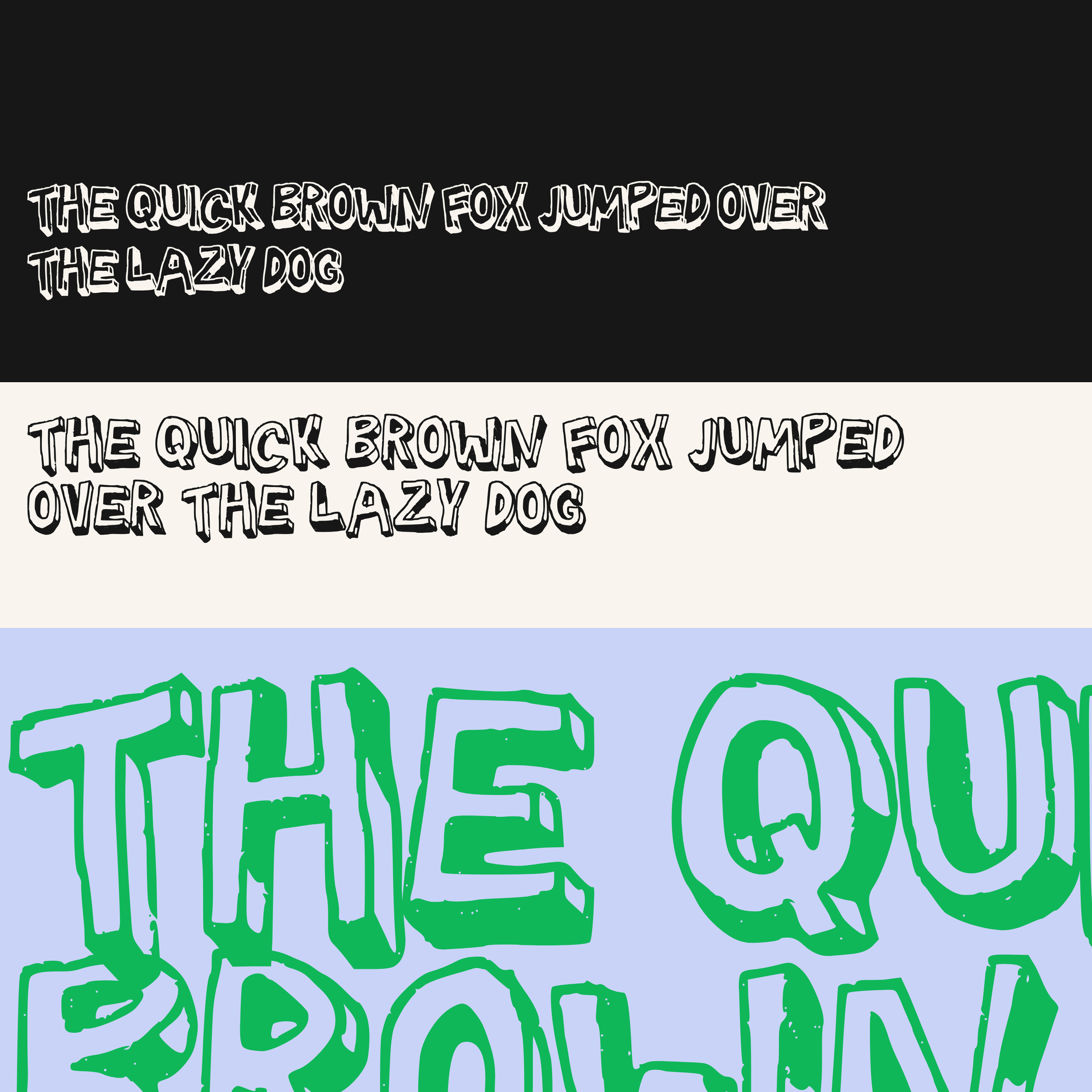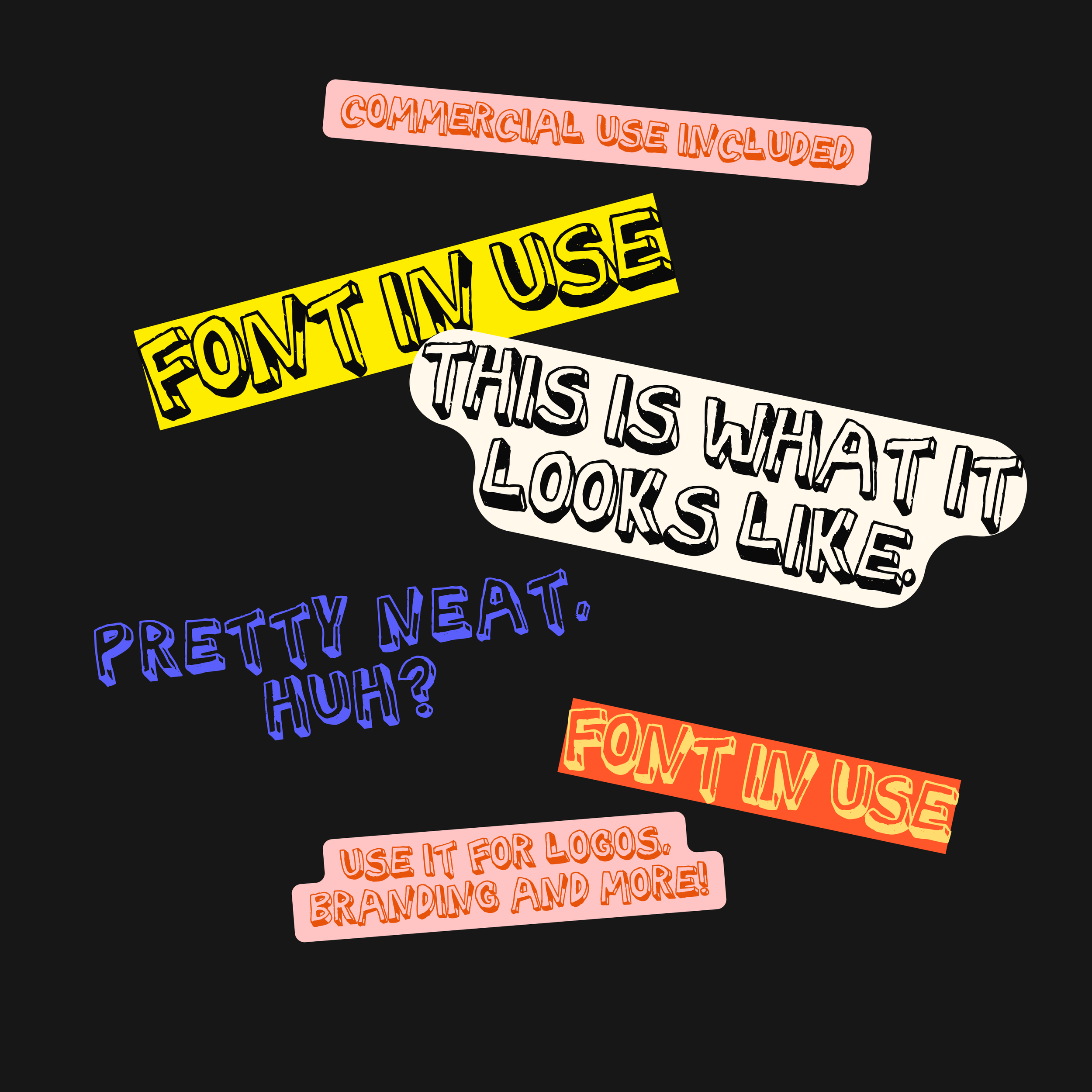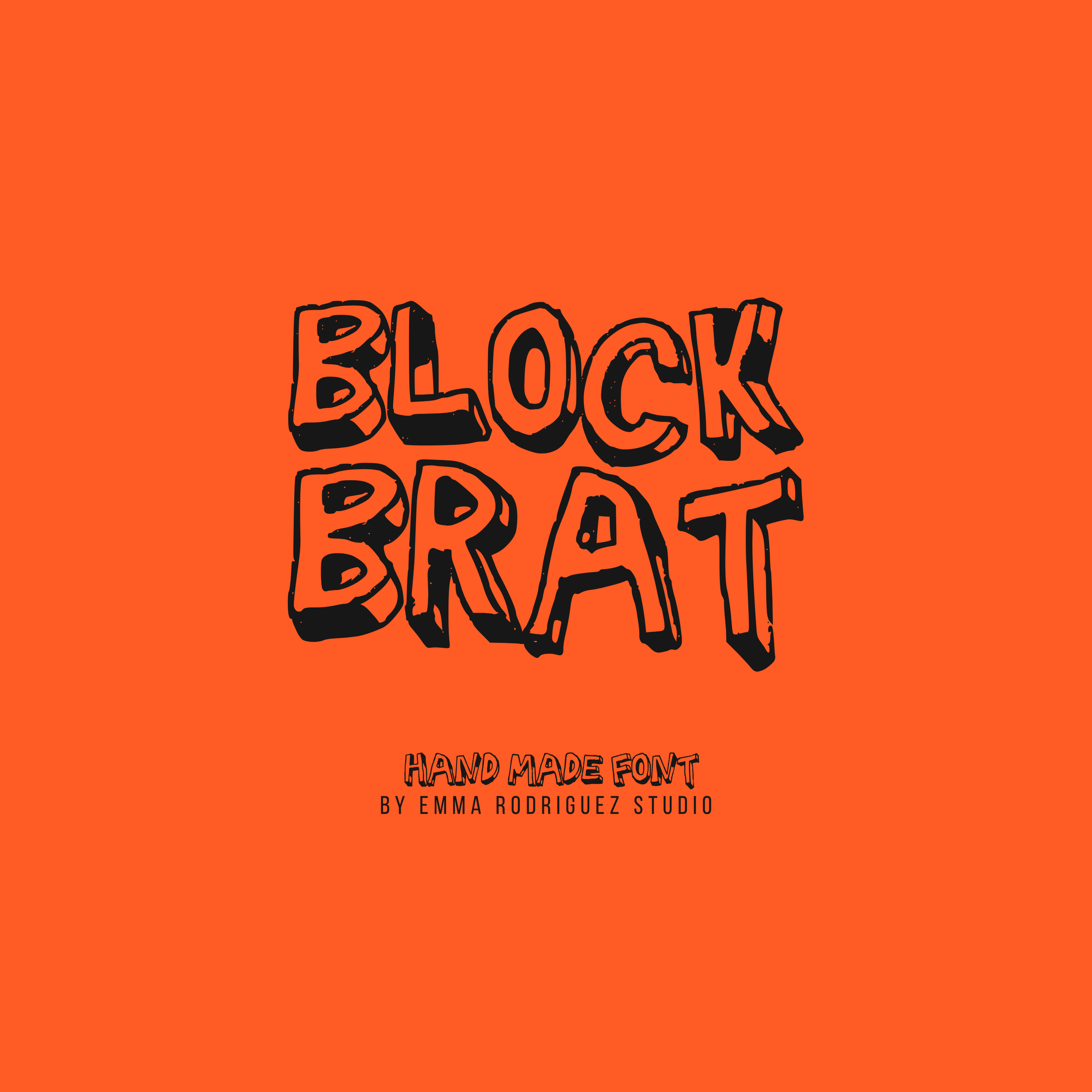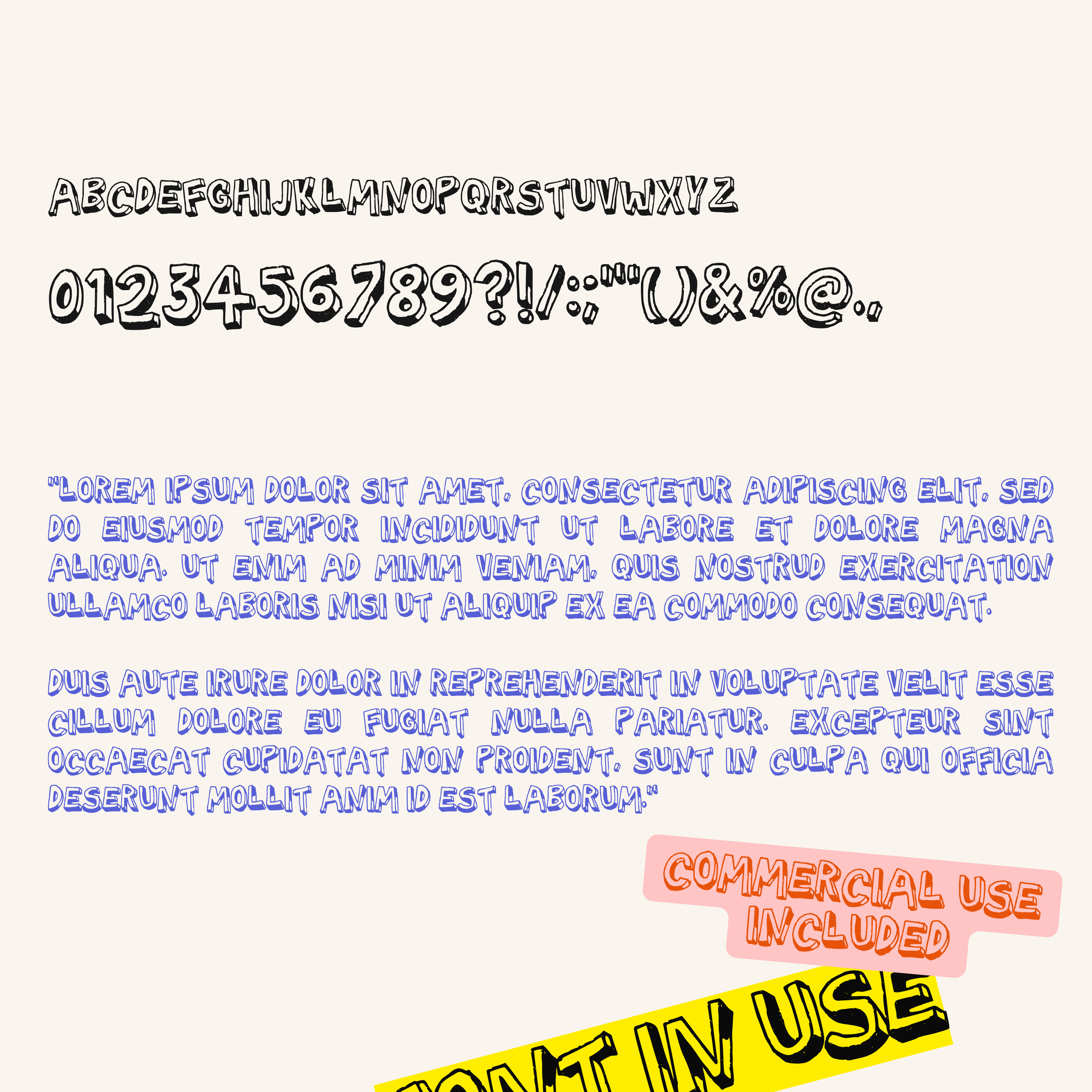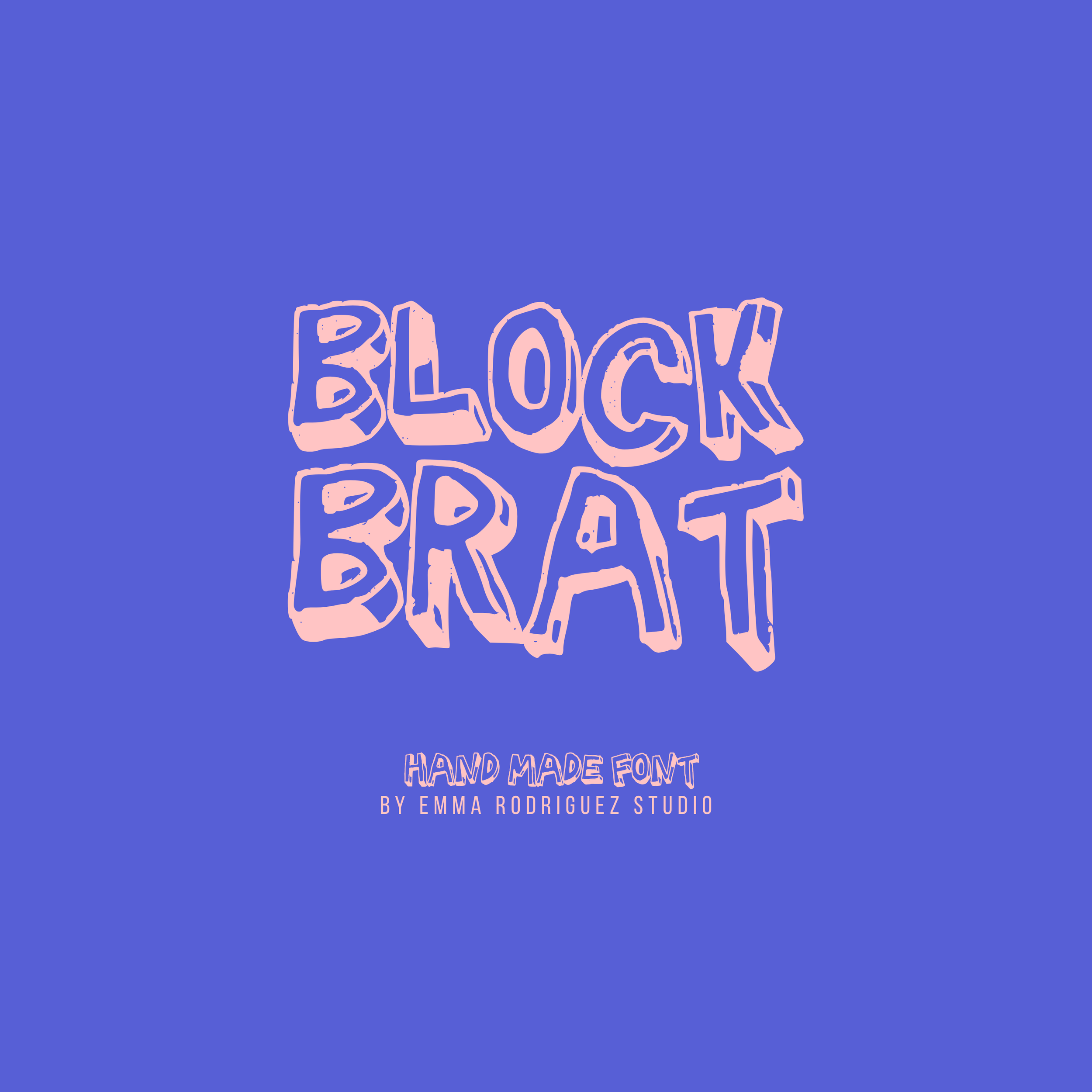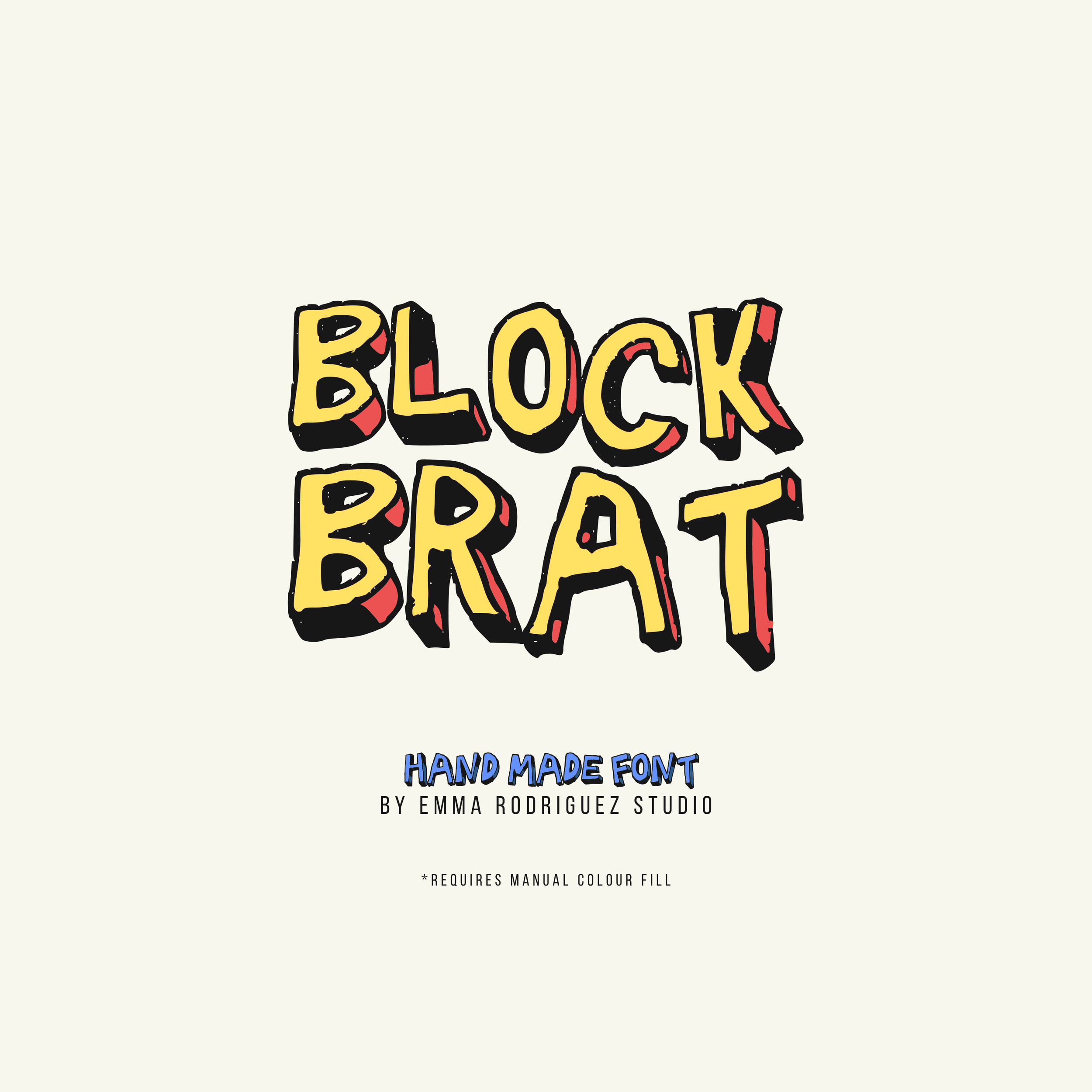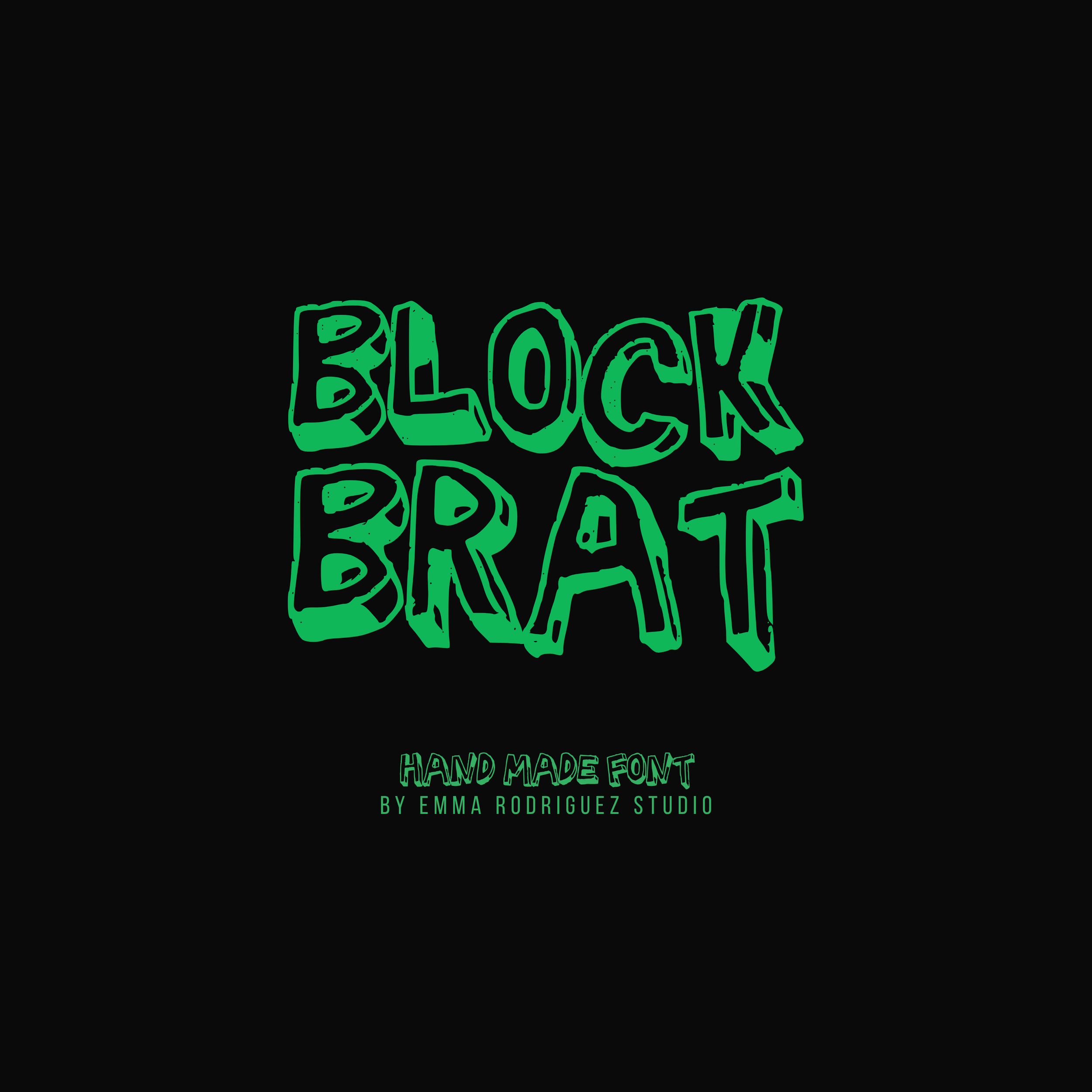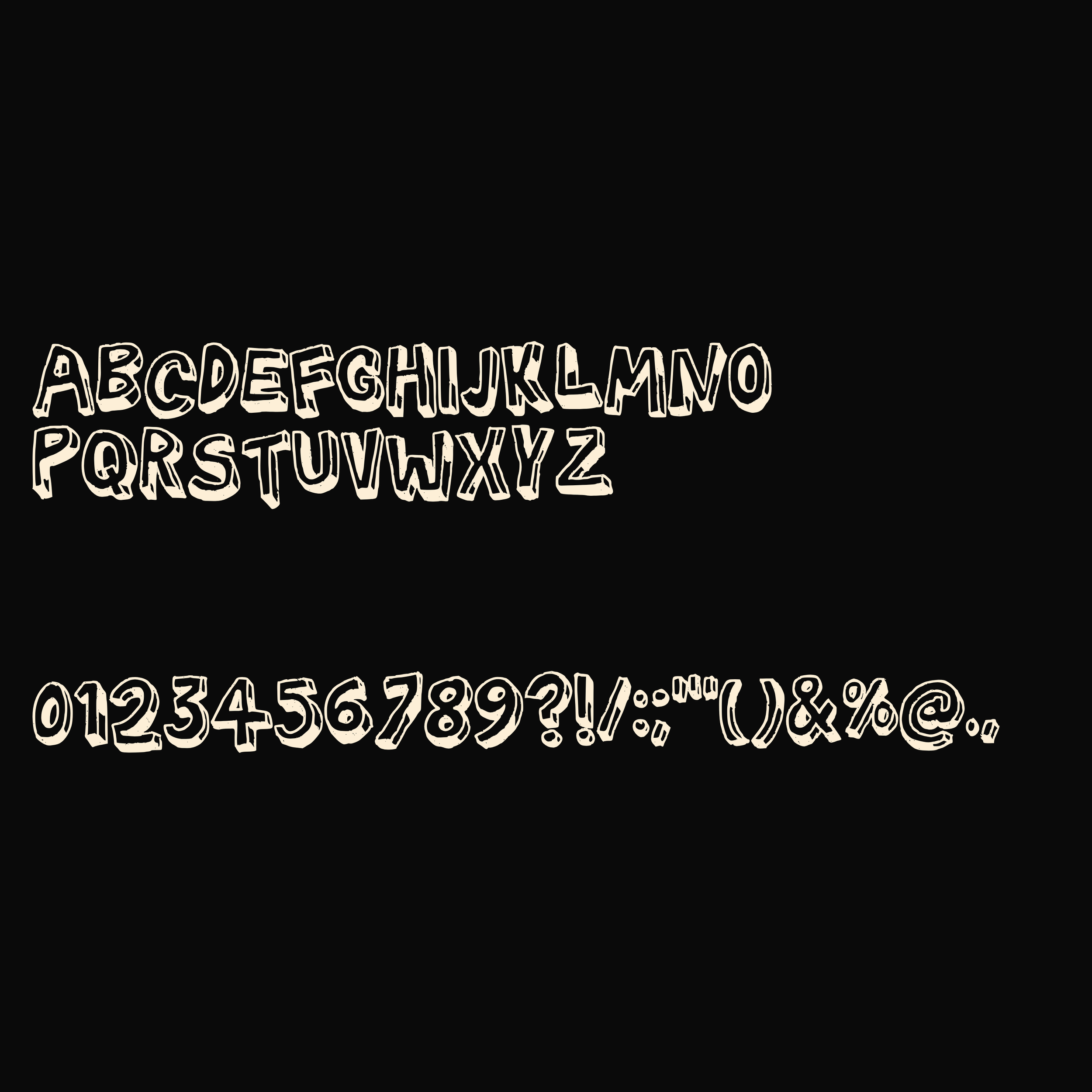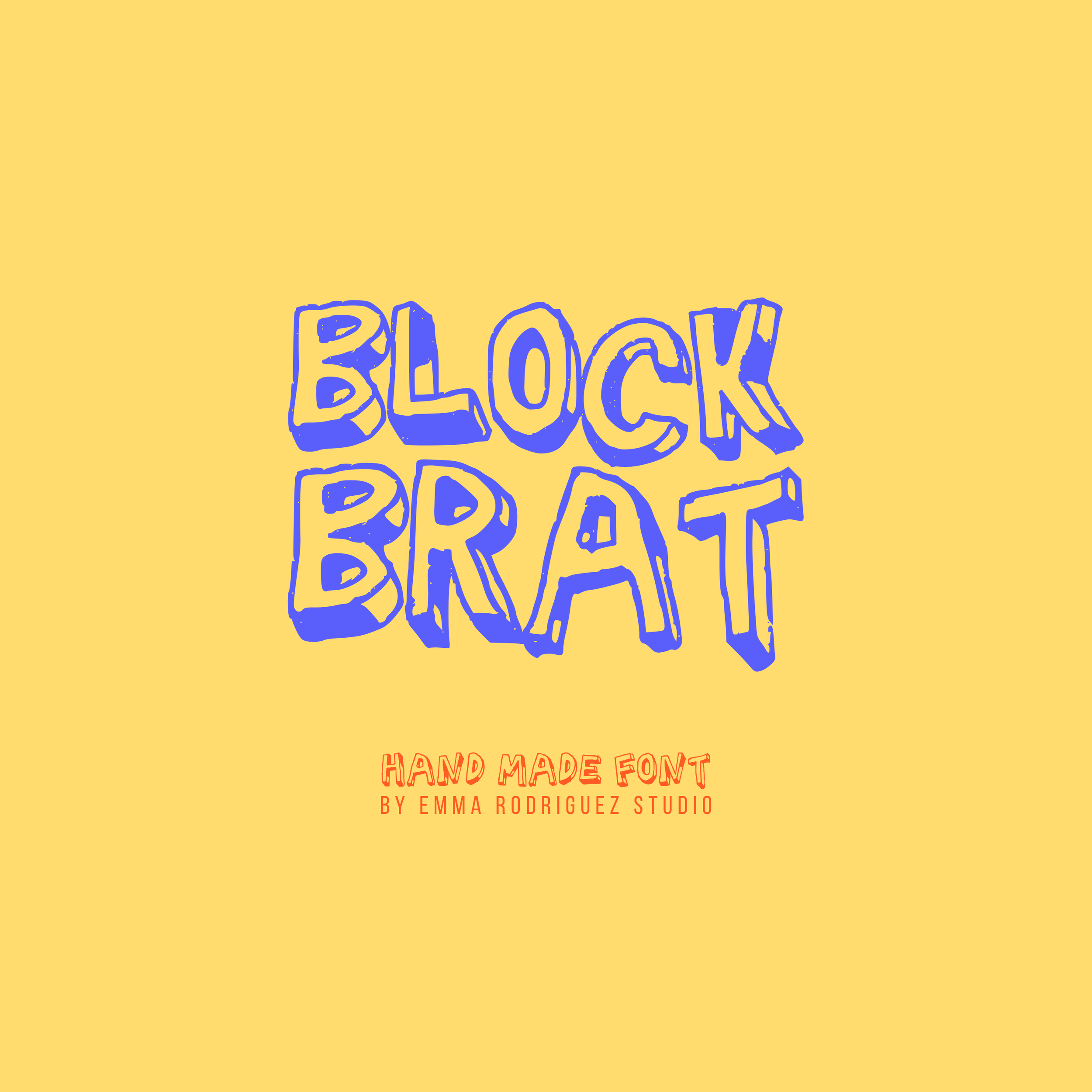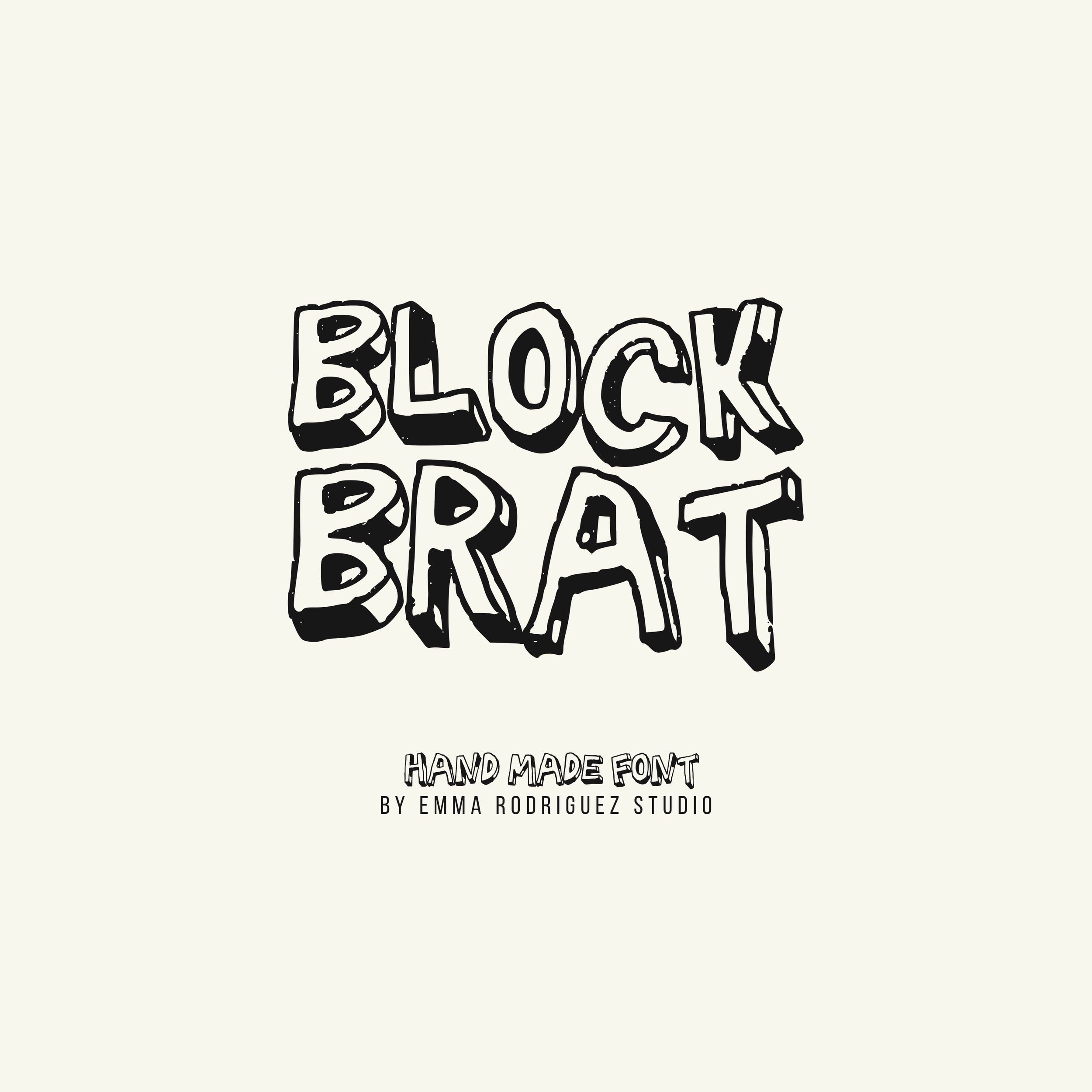
Block Brat Font - Chunky Outline Type
Block Brat is a chunky hand drawn outline display font with playful bubble-inspired letterforms, bold all caps styling and a slightly bratty handmade feel. The shapes are rounded, uneven and full of personality, making it a strong choice for designers who want something fun, loud and a little less polished.
This is an all caps outline font, designed for graphic designers, illustrators, artists, poster makers, branding designers, small businesses and Etsy sellers creating work with a playful retro edge.
Please note that Block Brat is an outline-only font. If you want solid lettering, colour-filled characters or textured interiors, these will need to be added manually in compatible design software. This gives you more freedom to customise the look, but it does mean the font is not pre-filled.
The irregular letterforms, spacing, proportions and handmade construction are all intentional and part of the style. Some manual kerning or letter placement may be useful depending on your layout.
Fonts by Emma Rodriguez Studio are made to have personality. Expect naive shapes, wonky details, playful imperfections and type that doesn’t take itself too seriously. They’re not designed for clean, minimal branding. They’re for bold, quirky, maximalist projects that need something a little stranger, sillier and more expressive.